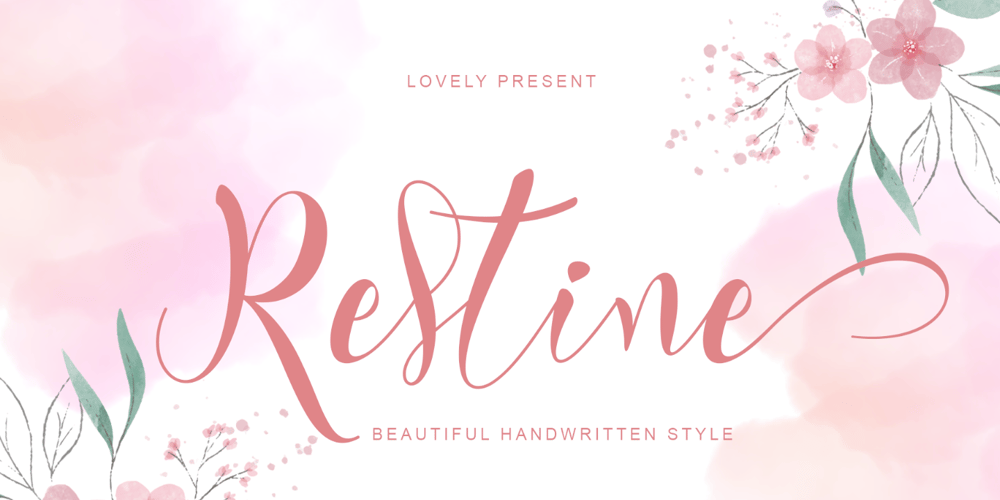
Restine
Restine font
Restine Font Family was designed by Isroni Yoga Prasetya and published by Yoga Letter. Restine contains 1 styles and family package options. “Restine” is an elegant and beautiful handwritten font. This font is equipped with uppercase, lowercase, ligatures, swash, titling, numerals, punctuation, and multilingual support. Very suitable for weddings, Christmas, engagements, posters, stickers, banners, branding, and others.